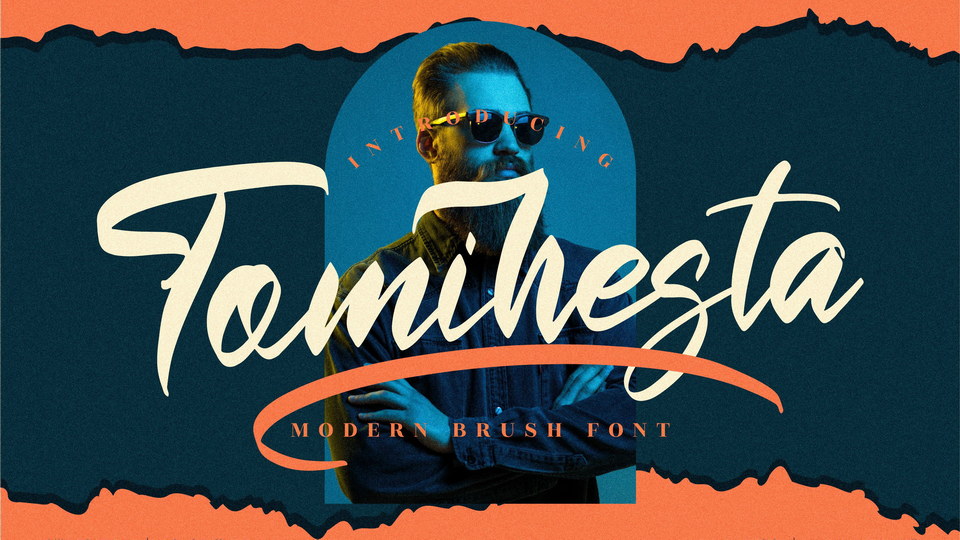
Download Tomihesta font, a modern and bold paint brushed script typeface. Tomihesta is neatly crafted and highly detailed to enhance any creation.
Designer: Perspectype Studio